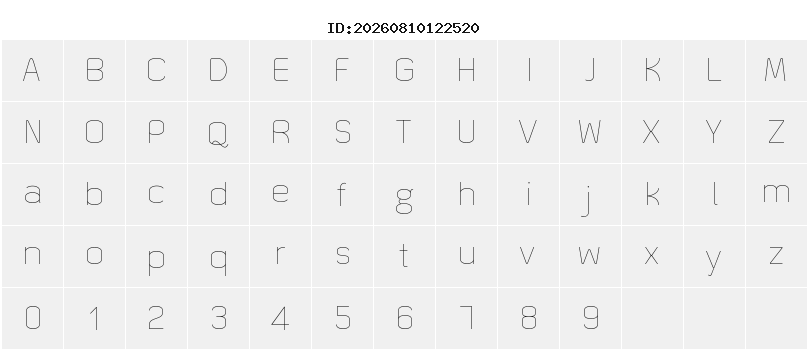
• Font Name: Quizma
• Manufacturer: StudioTypo
About Quizma.otf
Quizma.otf is a modern, elegant sans-serif font designed for ultimate readability and visual harmony. Perfect for branding, headlines, web design, and print materials.